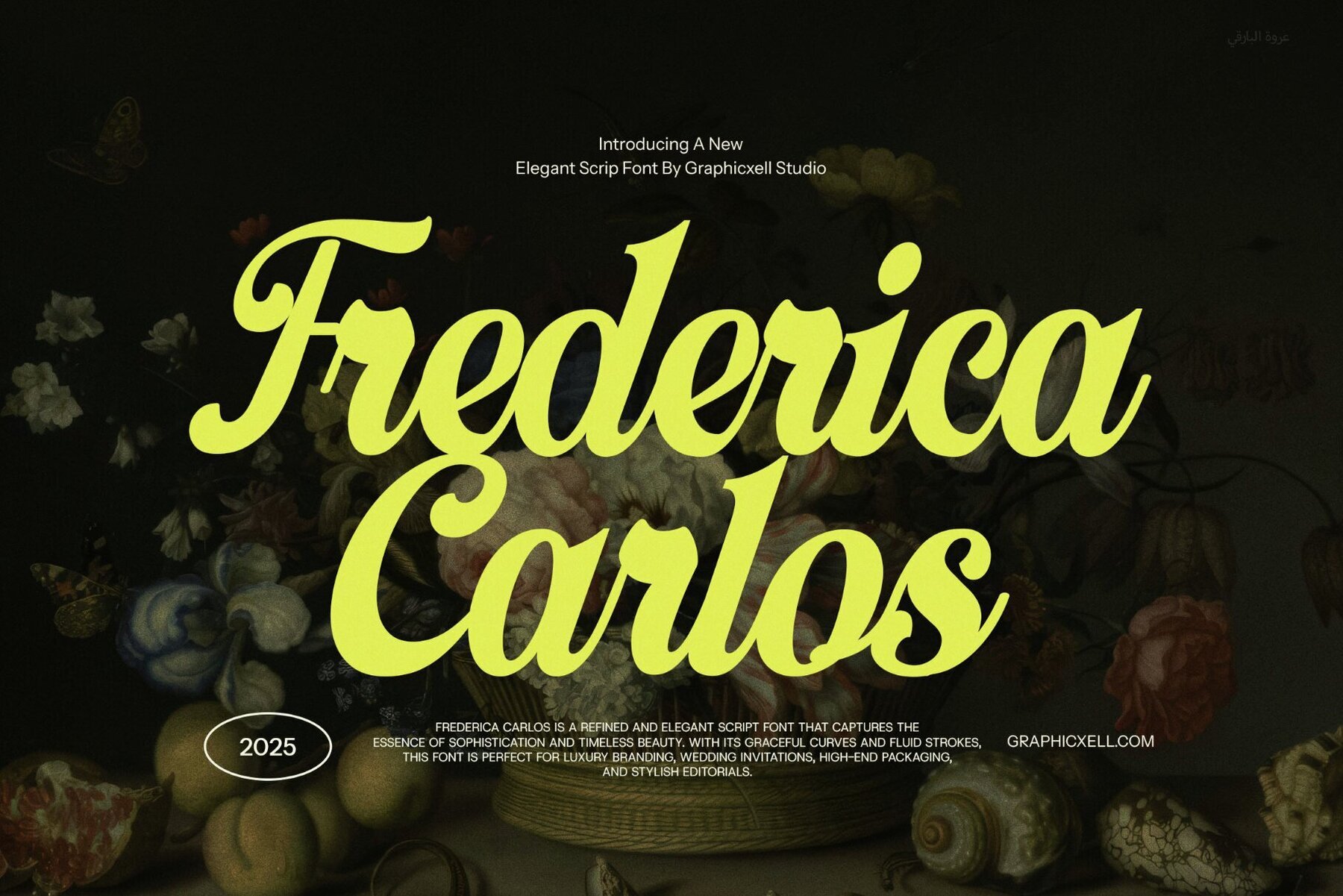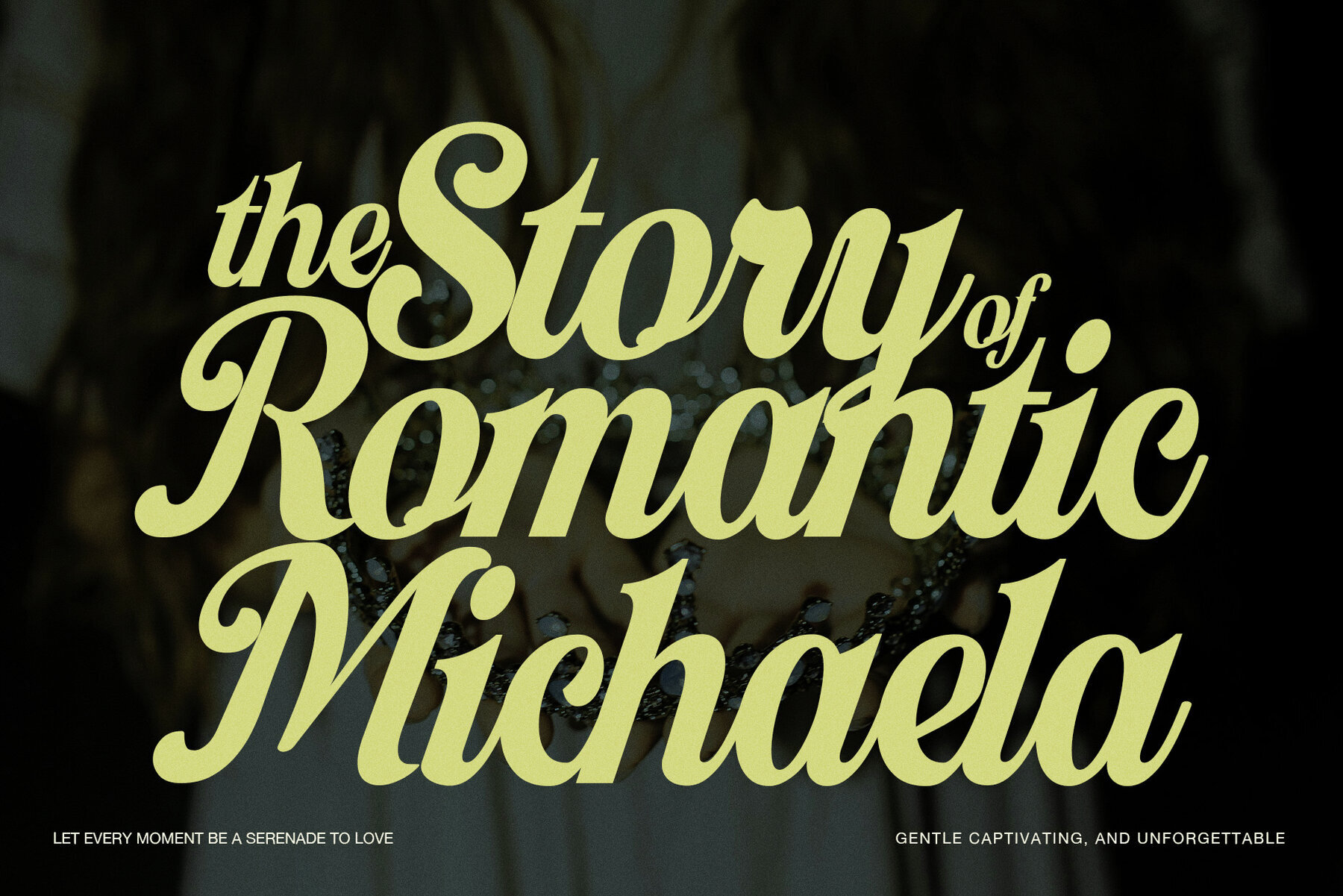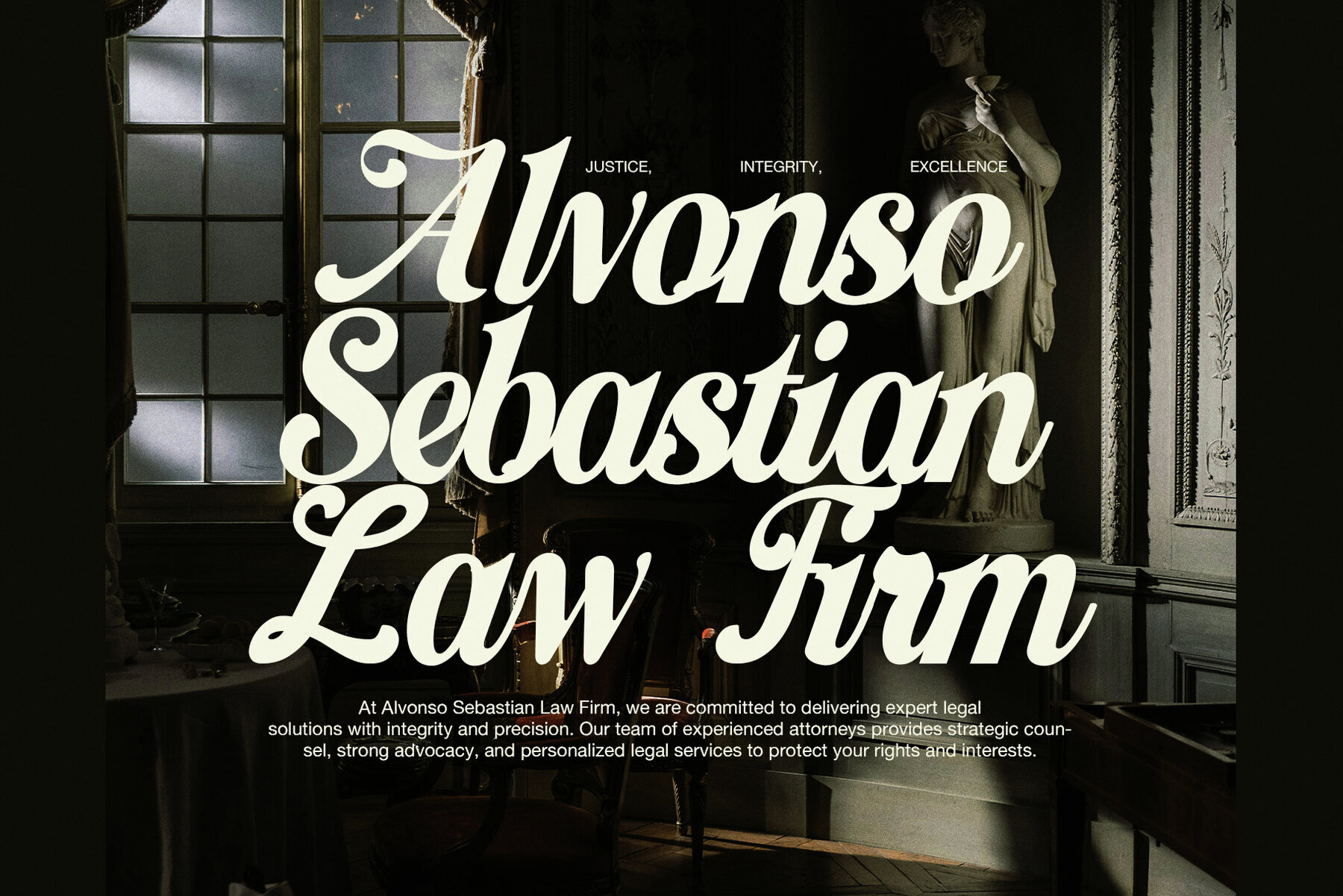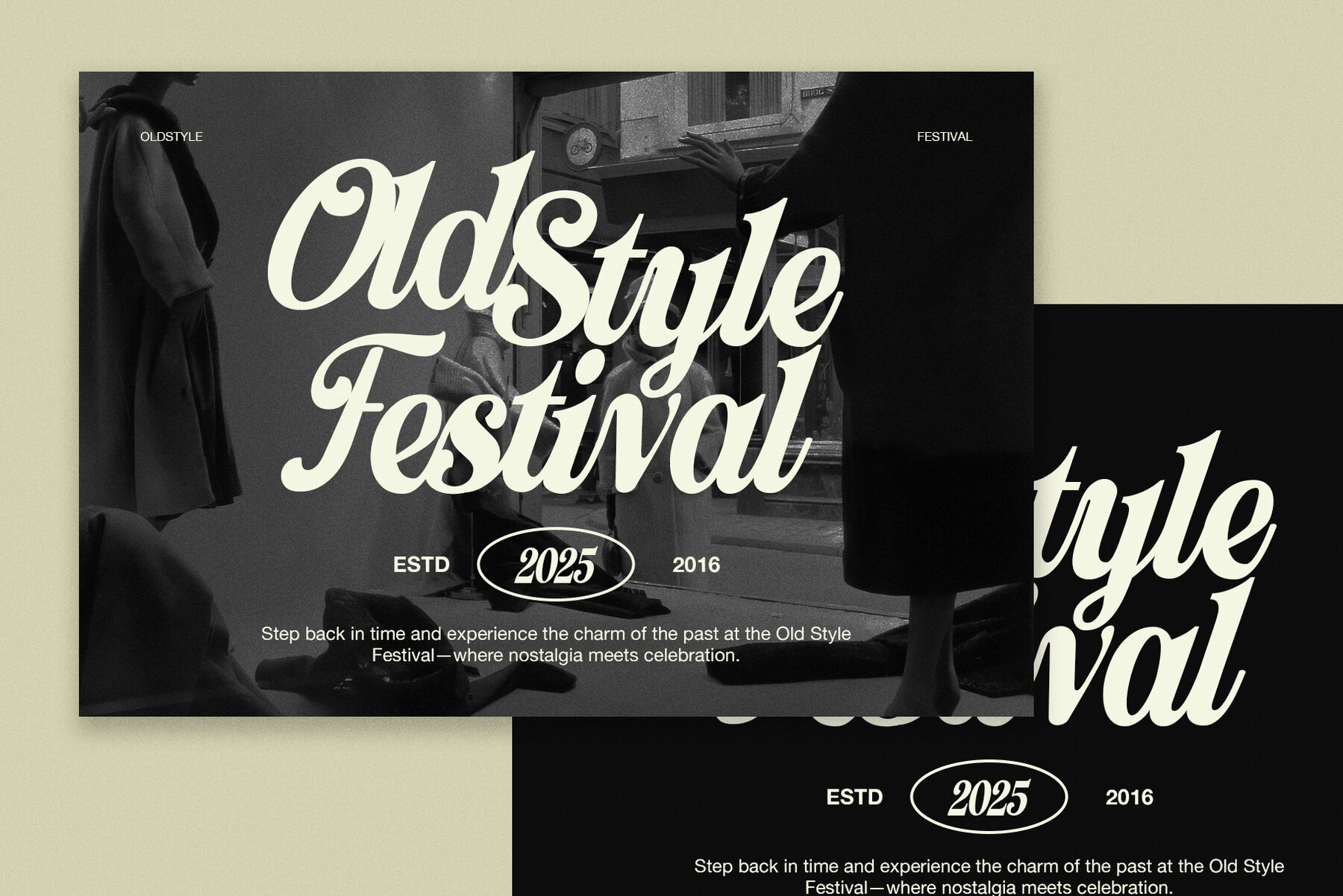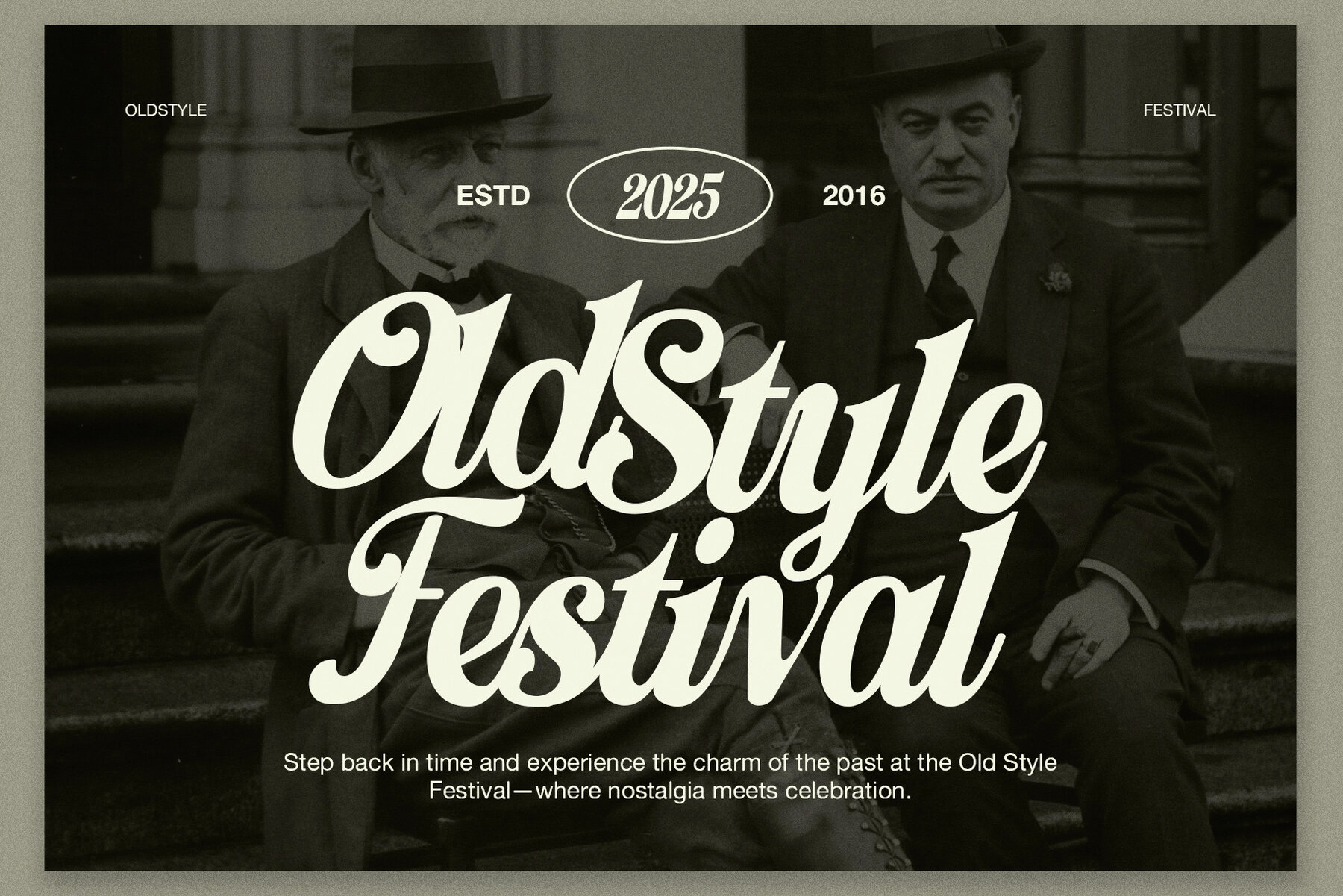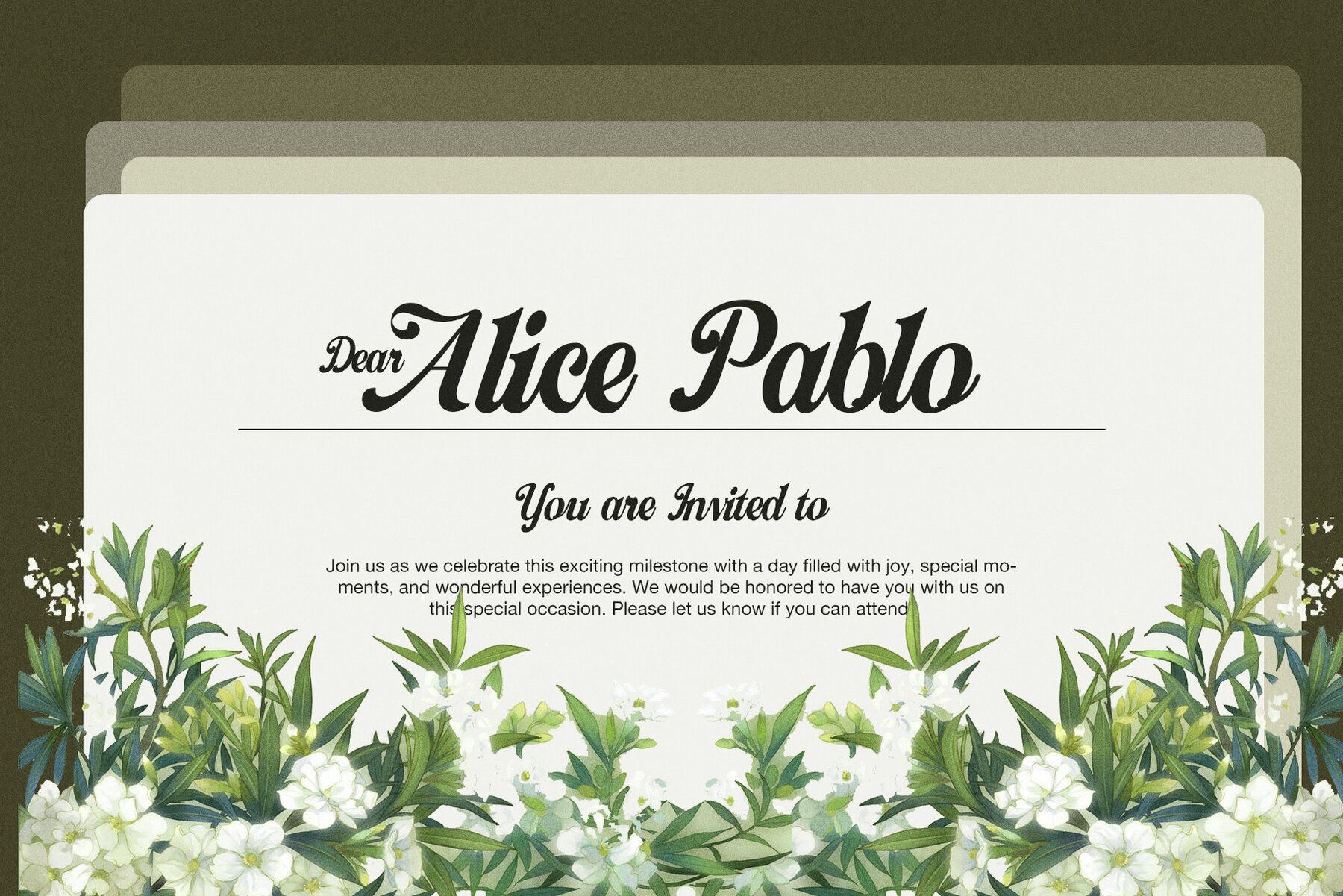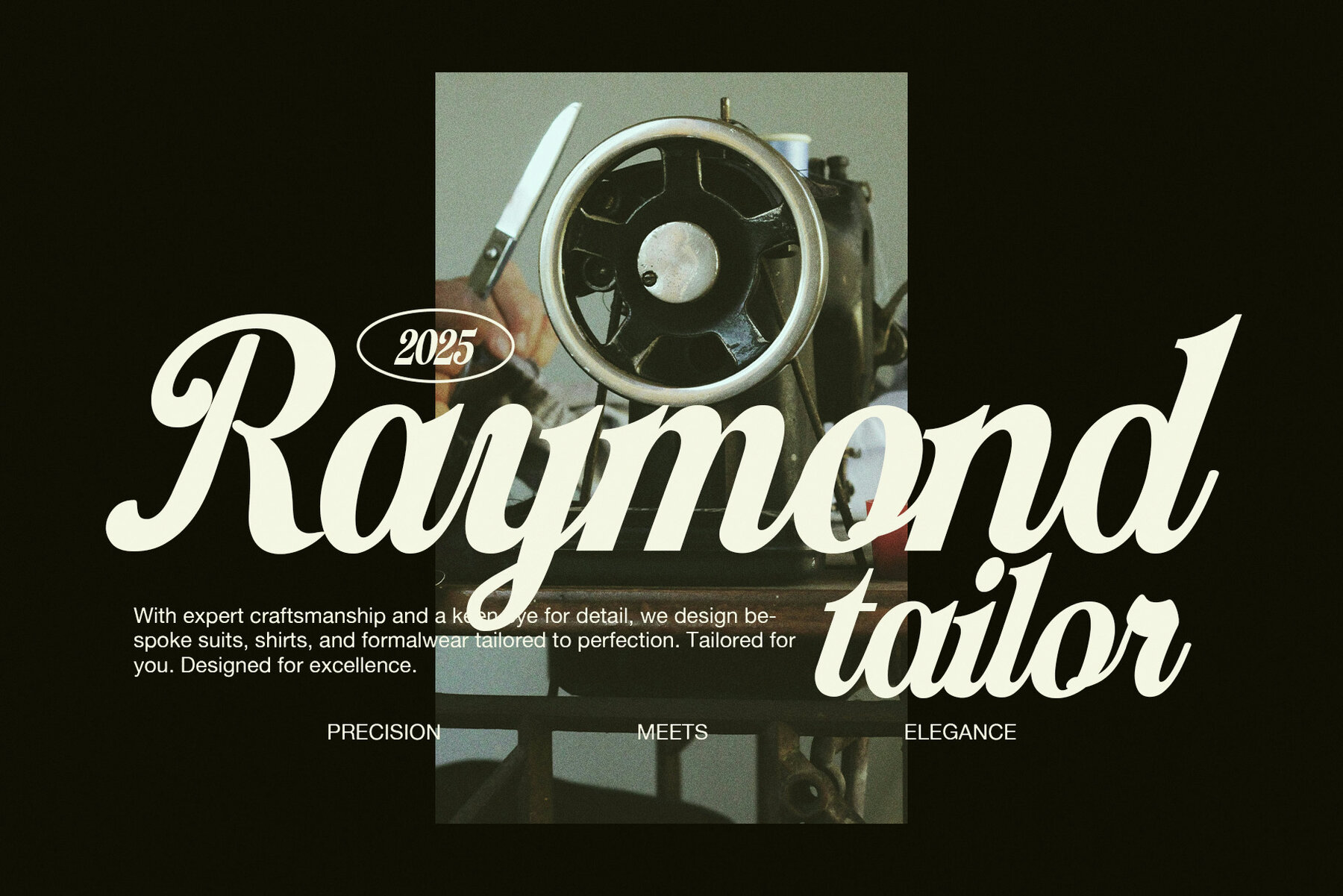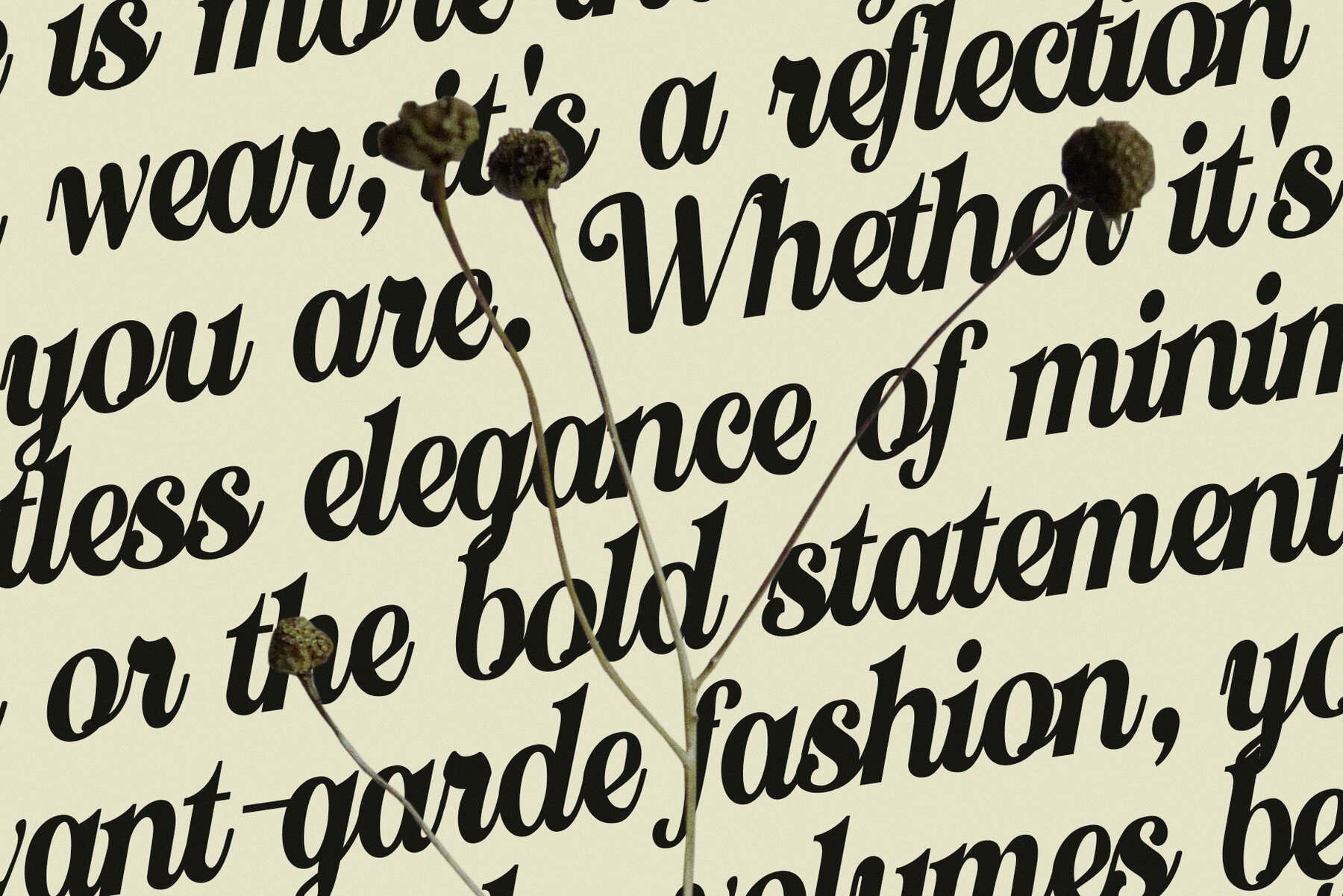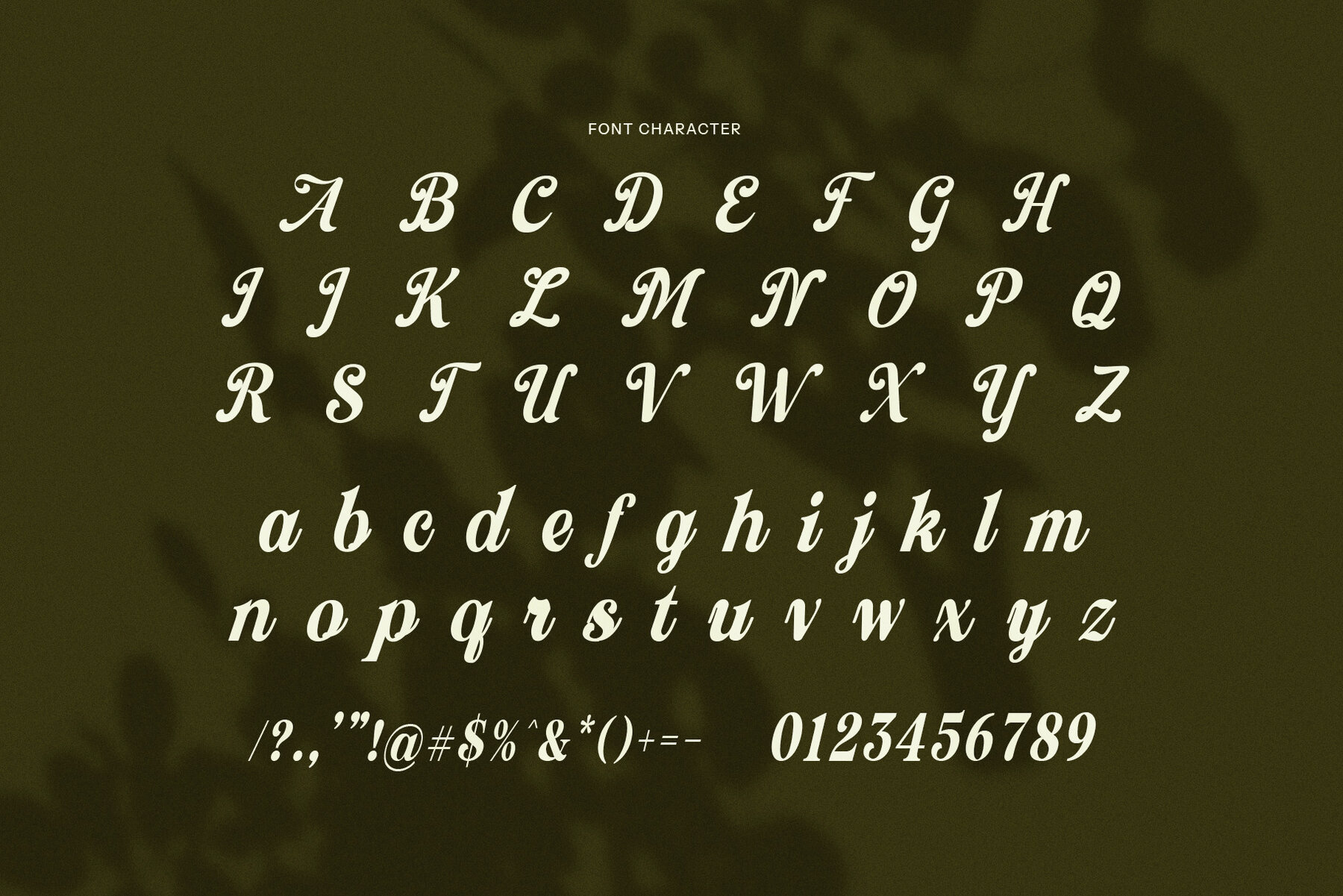
Frederica Font
Frederica Regular
Frederica Elegant Script Font is a timeless blend of sophistication and charm, designed to bring an exquisite touch to every project. With its fluid strokes, graceful curves, and luxurious calligraphic alternates, Frederica elevates the art of script typography into a truly refined visual experience. This typeface captures the essence of modern elegance while honoring classic hand-lettering traditions—making it the perfect choice for designers who seek both beauty and versatility. Ideal for wedding invitations, branding identities, logo designs, and high-end packaging, Frederica embodies a romantic yet contemporary spirit. Each letter is thoughtfully crafted with stylish ligatures and multiple alternates, giving you the flexibility to create a truly custom and polished look. Whether you're designing a luxury fashion label, a music album cover, or an elegant business card, Frederica adapts effortlessly across digital and print mediums. Its delicate yet expressive forms also shine in magazines, social media graphics, Canva templates, event posters, and website headers—anywhere you want to make a bold yet graceful impression. Perfect for use with Adobe Illustrator, Photoshop, and Canva, Frederica ensures seamless usability for both beginners and experienced creatives. Let your typography speak with elegance. Frederica Elegant Script Font isn’t just a typeface—it’s a statement of style, ideal for designs that deserve a touch of sophistication, charm, and personality.